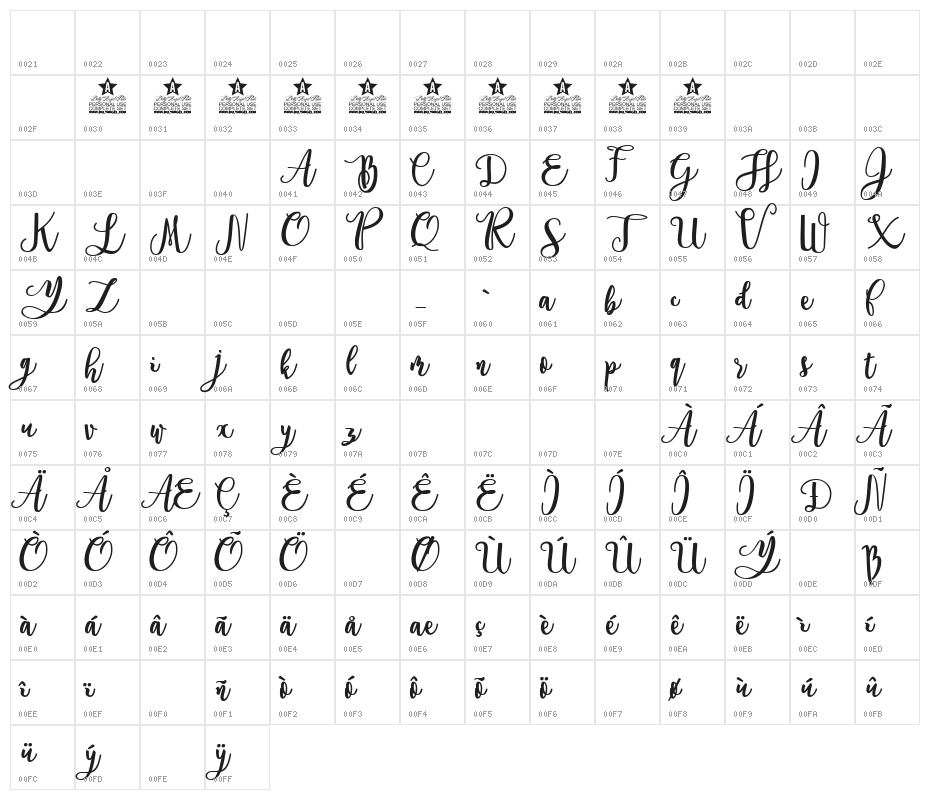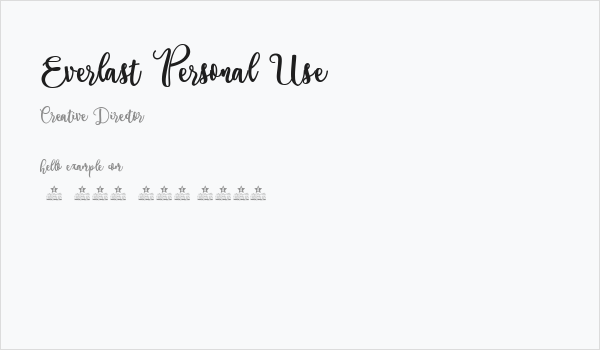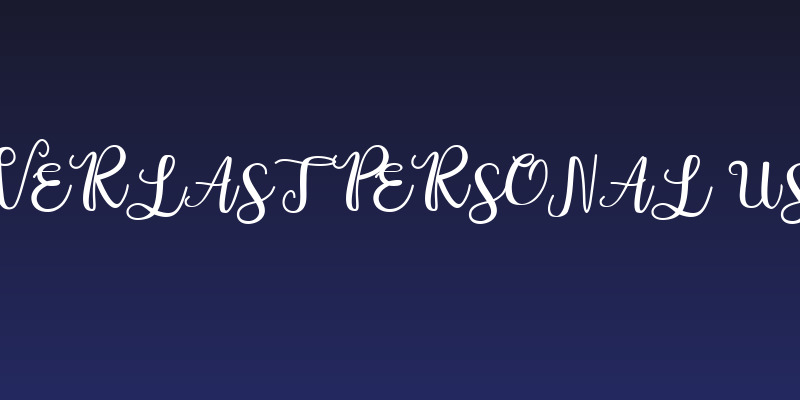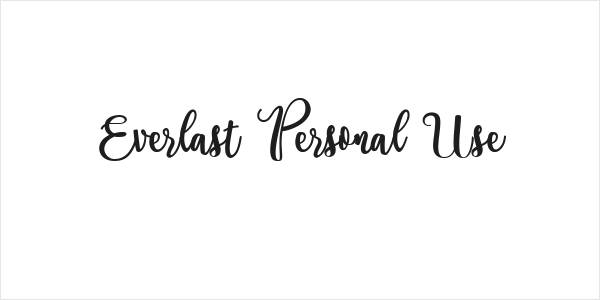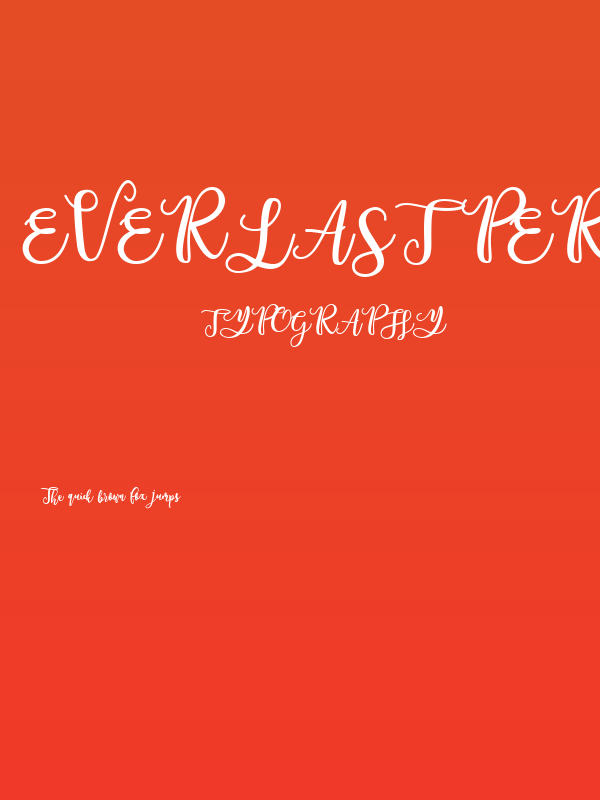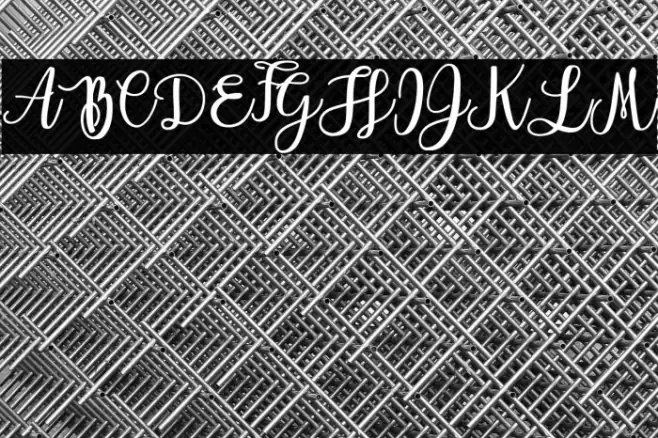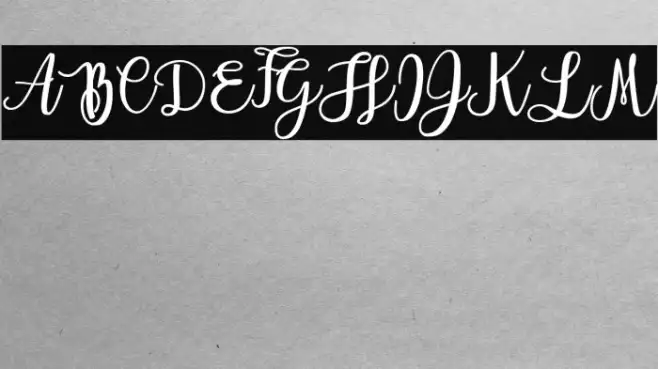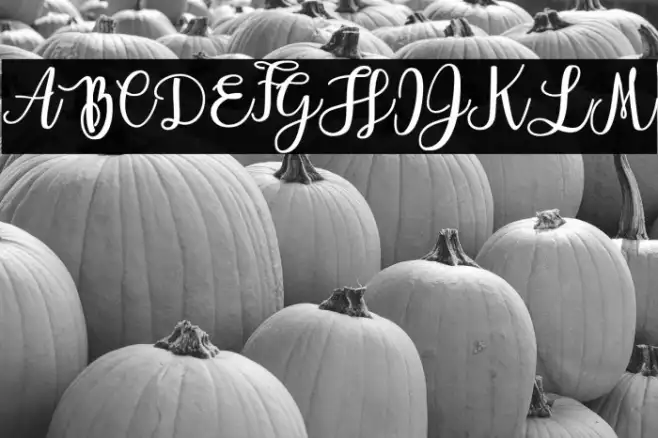
Everlast Personal Use Font
Everlast Personal Use Description
This font features a flowing, cursive style with elegant loops and swashes, creating a sense of movement and grace. The uppercase letters are tall and slender with intricate details, while the lowercase letters maintain a consistent, smooth flow. The font has a handwritten feel, with varying stroke widths that add a dynamic and personal touch. The special characters are designed to match the overall aesthetic, enhancing its decorative appeal. This font is suitable for projects that require a touch of elegance and sophistication.